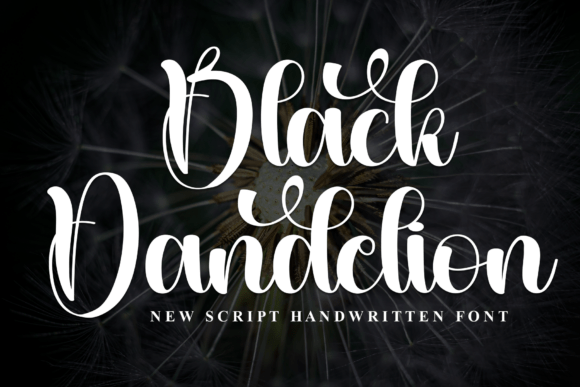
The Magic of Black Dandelion Font: A Designer’s Delight
I’ll never forget the time I was working on a wedding invitation project, and my client asked for a font that was “romantic, elegant, and with a touch of whimsy.” I scoured the internet, tried out dozens of fonts, but nothing seemed to fit the bill. That was until I stumbled upon the Black Dandelion Font. Its dramatic swashes and elegant curves instantly captured the essence of what my client was looking for. In this article, I’ll share my experience with this beautiful font, its features, and how to make the most of it in your designs.
An Honest Review of Black Dandelion Font
So, what makes the Black Dandelion Font so special? Let’s dive into the good stuff and a few quirks I’ve discovered.
- ✨ Dramatic Swashes: The font’s swashes add a touch of drama and elegance to any design.
- ✅ Elegant Curves: The curves in this font are smooth and sophisticated, making it perfect for wedding invitations, logo designs, and boutique branding.
- 💕 Romantic Feel: The overall feel of the font is romantic and whimsical, perfect for capturing the essence of special occasions.
- 🎨 Versatility: Despite its elegant nature, the font is surprisingly versatile and can be used in a variety of design contexts.
While the Black Dandelion Font is amazing, there are a few things to keep in mind:
- 🤔 Legibility at Small Sizes: Like many script fonts, Black Dandelion can be a bit tricky to read at very small sizes. It’s best used at larger sizes where its features can shine.
- ⚠️ Overuse of Swashes: While the swashes are beautiful, using too many can make your design look cluttered. Balance is key.
A Practical Guide to Using Black Dandelion Font
The Designer Inspiration Behind Black Dandelion
The story behind Black Dandelion Font is one of passion and creativity. While the actual origins might not be well-documented, it’s clear that the designer aimed to create a font that captures the essence of romance and elegance. Imagine a designer, sitting in a quaint café, surrounded by wedding invitations and floral arrangements, seeking to create a font that embodies the beauty of love and celebration.
Q: What makes Black Dandelion Font unique?
A: Its dramatic swashes, elegant curves, and romantic feel make it stand out from other script fonts.
Q: Is Black Dandelion Font suitable for body text?
A: While it’s beautiful, it’s best used for headings and short texts due to its script nature and potential legibility issues at small sizes.
Q: Can I use Black Dandelion Font for my wedding invitations?
A: Absolutely! Its romantic and elegant feel makes it perfect for wedding invitations, save-the-dates, and other wedding-related materials.